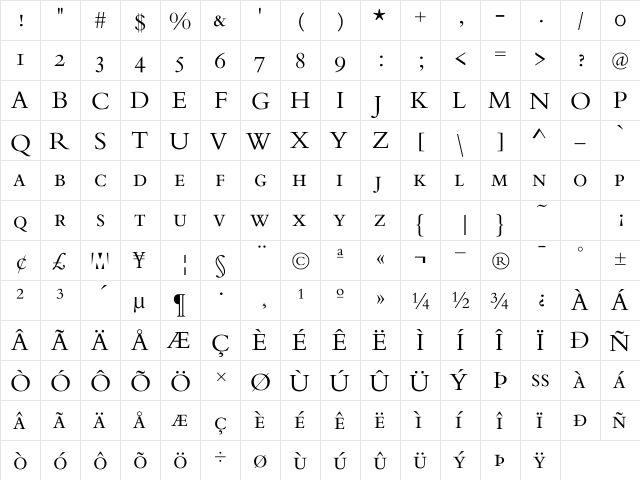
MVOldstyleSC Regular Font Preview
MVOldstyleSC Regular
MVOldstyleSC Regular Font Details
Design Context for MVOldstyleSC Typeface
MVOldstyleSC brings classic typographic sensibility to the table — its serifs and measured letterforms reflect centuries of print heritage.